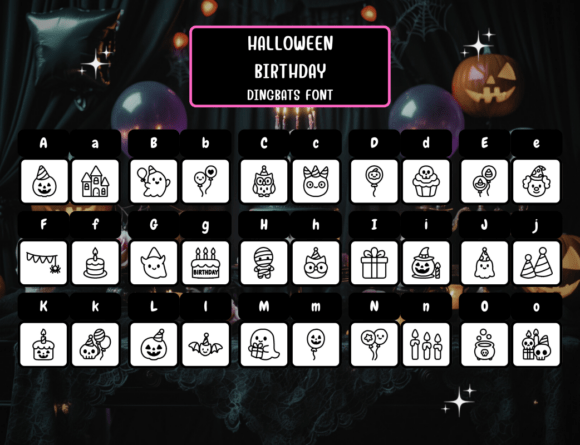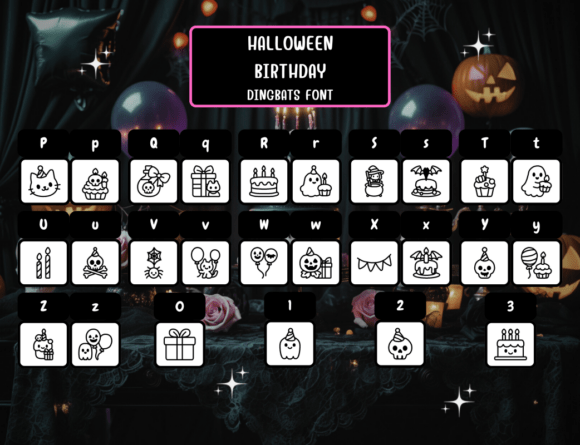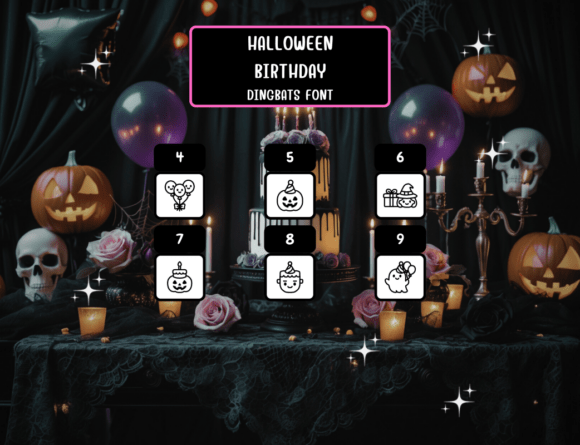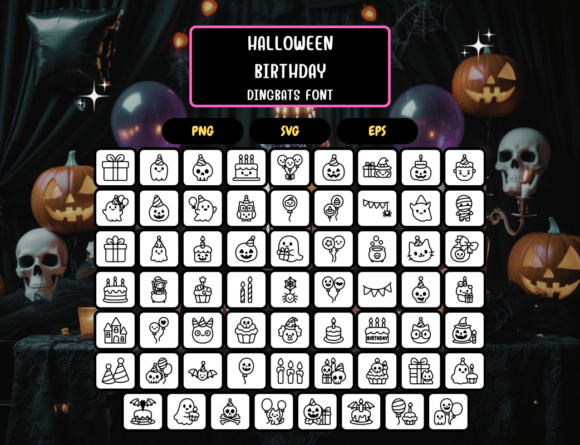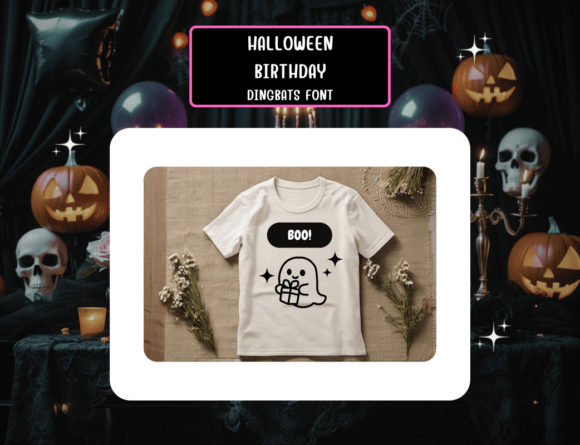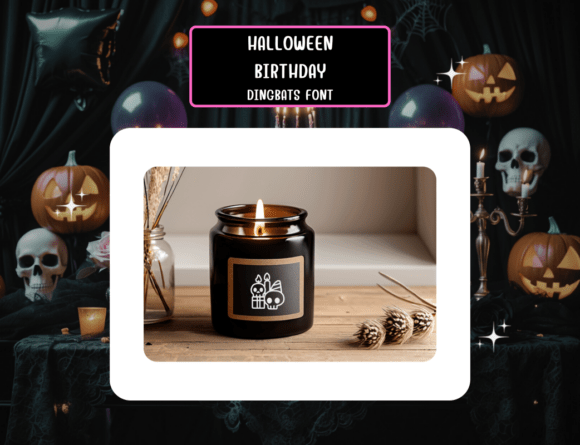
Introduction to Halloween Birthday Font
Halloween Birthday Dingbats Font.
A charming Dingbats font filled with a variety of hand-drawn Halloween Birthday illustrations Perfect for labels, packaging, stickers, greeting cards, educational materials, and creative projects.
Key Features of Halloween Birthday Font
Why Choose Halloween Birthday Font?
Halloween Birthday Font offers exceptional quality and versatility, making it a valuable addition to your design toolkit. Whether you’re creating for personal projects or commercial use, Halloween Birthday Font delivers professional results.